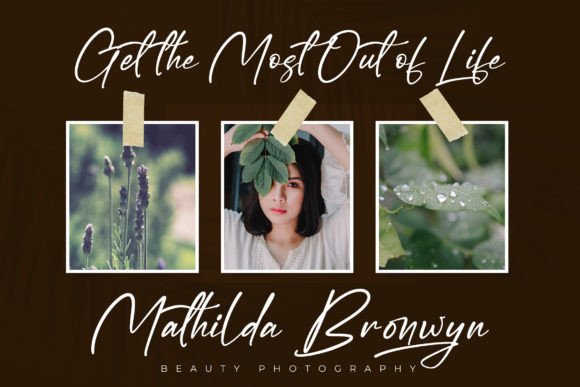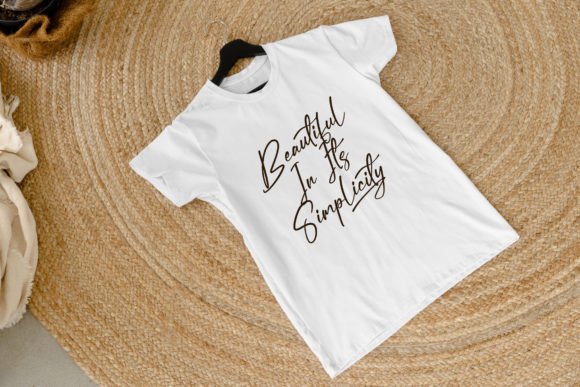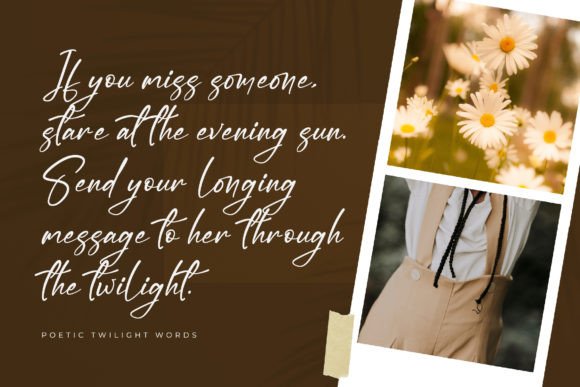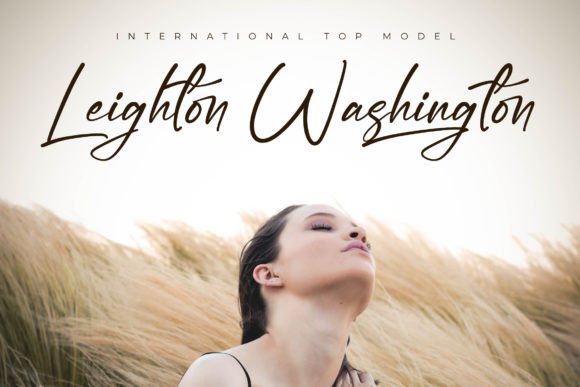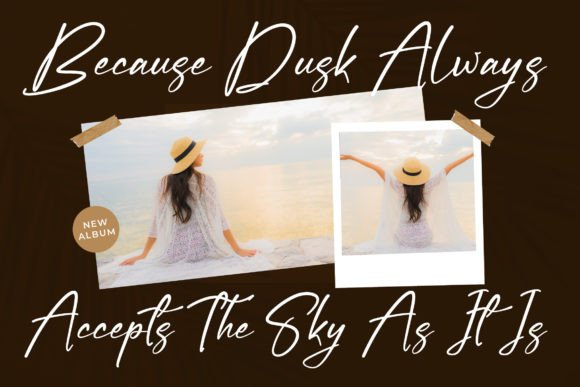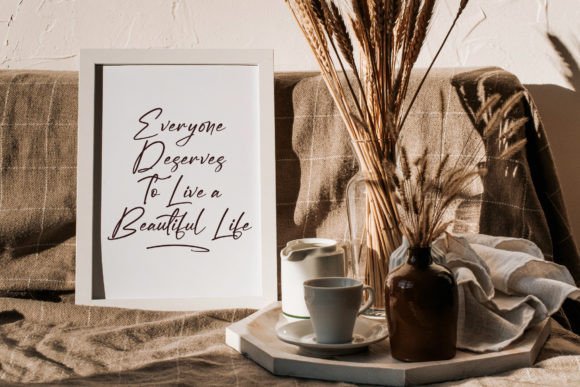
Introduction to Katedryllon Font
Have you ever stumbled upon a beautiful hand-painted quote or a charming product label that instantly caught your eye? For many designers, those moments are what drive creativity and inspire new ideas. If you’re anything like us, you’ve probably found yourself daydreaming about the perfect script font to elevate your next project. Enter Katedryllon Font, a stunning modern script font designed to bring a touch of elegance to your creative endeavors.
As a valuable resource for designers, Katedryllon Font is perfect for a wide range of projects, from logos and branding to homeware designs and product packaging. Its high-quality design and transparent background make it a versatile and reliable choice for any creative project. Whether you’re looking for a free download or a premium design resource, Katedryllon Font is sure to meet your needs and exceed your expectations.
- High-quality design resource suitable for creative projects, offering a unique and elegant touch.
- Designed with precision and attention to detail, resulting in a crisp and clear font with high resolution.
- Perfect for use in a range of creative projects, from logos and branding to typography and editorial design.
Honest Review: Katedryllon Font
I recently stumbled upon the Katedryllon Font and I must say, it’s a great addition to any design project. The font is high quality and perfect for a creative project where you need a unique touch. One of the standout features is the transparent background, which makes it easy to use as a design resource.
- Has a clean and modern design
However, I did notice a few limitations: ⚠️ Not ideal for complex typography ⚠️ Limited font styles available ⚠️ May not be suitable for all design projects
Overall, I’m impressed with the Katedryllon Font and would recommend it to anyone looking for a high-quality font for their creative project. It’s a great design resource that can help take your designs to the next level.
To get the most out of the Katedryllon Font, use it in conjunction with a transparent background to create visually appealing designs. Experiment with different font sizes and colors to enhance the impact of your creative project.
The Katedryllon Font is commonly used for branding, logos, and typography-based designs. Its high-quality design makes it an excellent choice for design resources and free downloads.